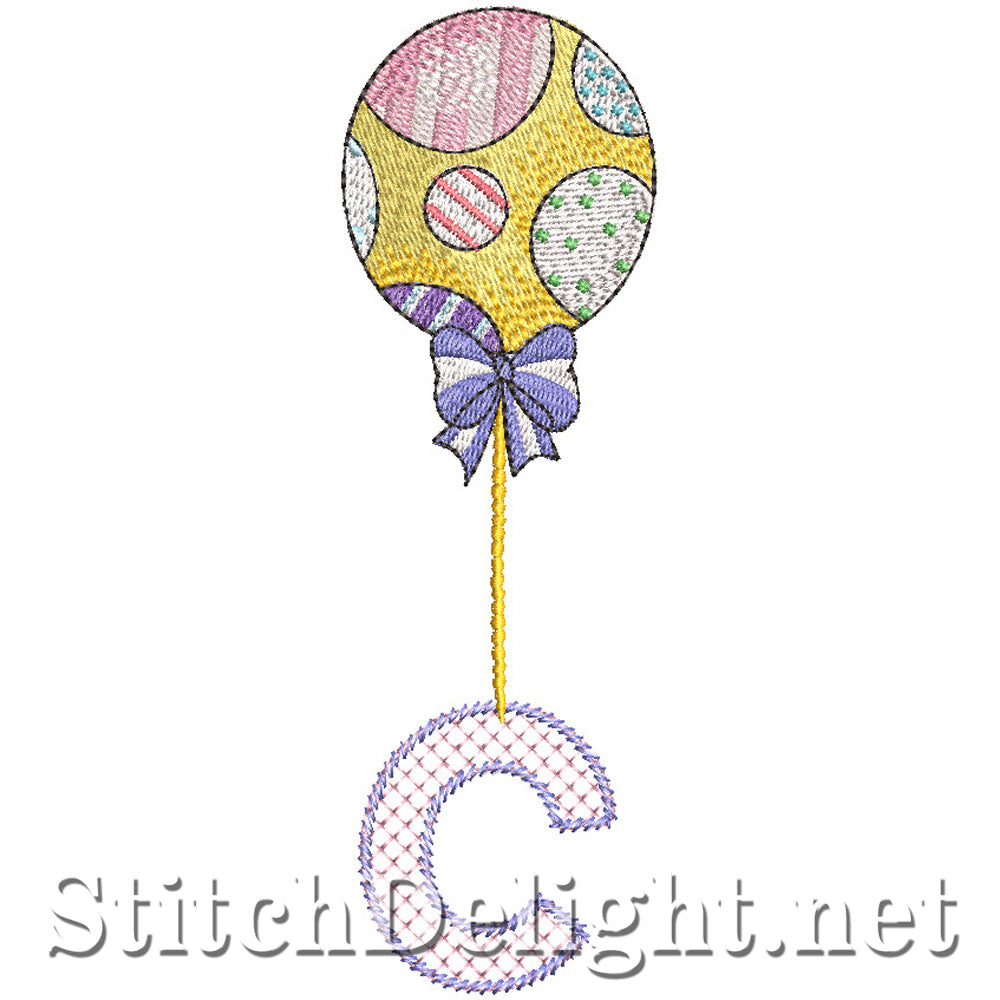
SDS1770 Little Balloon Font C
This single letter is sure to bring out the festive feel on any gift or garment it's stitched on. Can be used in so many projects, from Birthday events, to baby room décor, Towels,face cloths and even linen. The sky is the limit with this one. The font has an average height of 5 Inches so it's made for the 5x7" hoop.